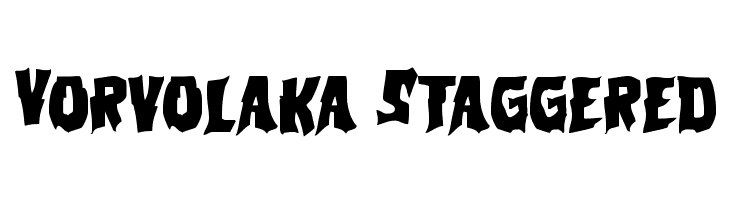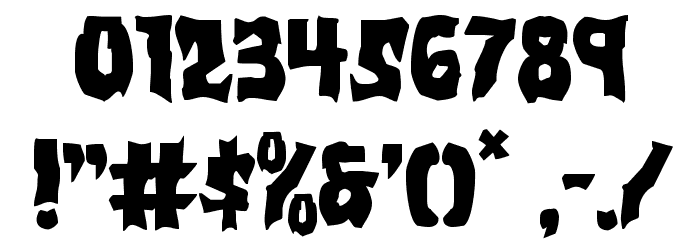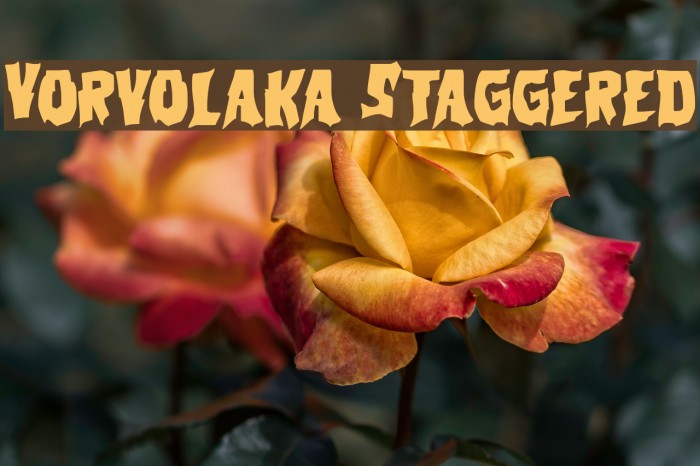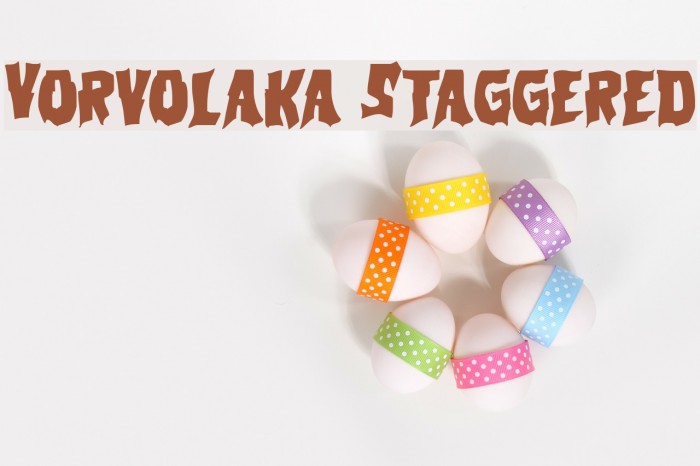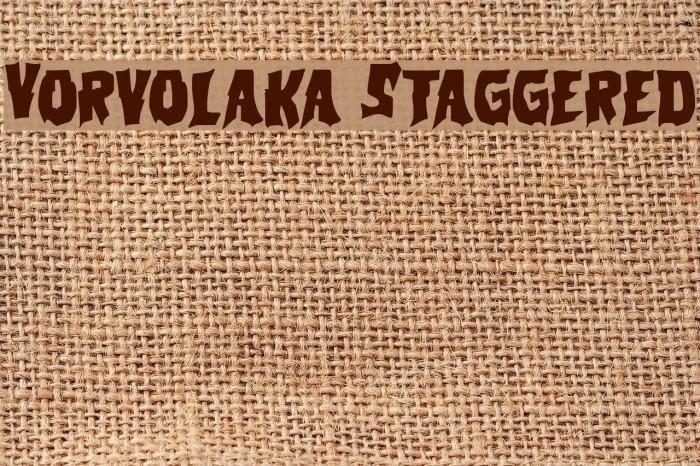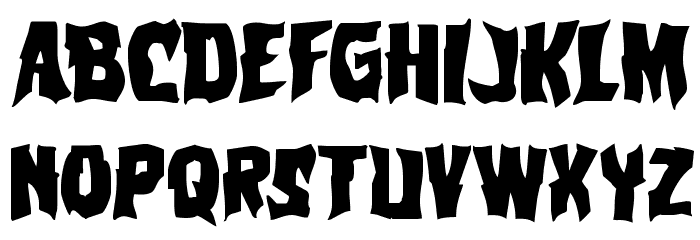
Vorvolaka Staggered Font
This font features a bold and jagged design, reminiscent of a horror or thriller theme. The characters have an uneven, staggered appearance, with sharp angles and irregular edges that give it a dynamic and edgy look. The uppercase and lowercase letters maintain a consistent style, with a slightly condensed form that enhances its dramatic impact. Numbers and special characters follow the same aesthetic, ensuring a cohesive visual experience. This font is ideal for projects that require a bold statement or a touch of the macabre.
A bold, jagged font with a horror-themed, staggered design.
• Proposed Projects: Ideal for horror movie posters, Halloween event flyers, edgy branding, and video game titles.
• Category: Decorative/Display
• Bold: Yes
• Italic: No
• Weight: Bold
• Width: Condensed
• Character Spacing: Normal
• Contrast: High
• Overall Style: Decorative
• Use Case: Headlines, Logos